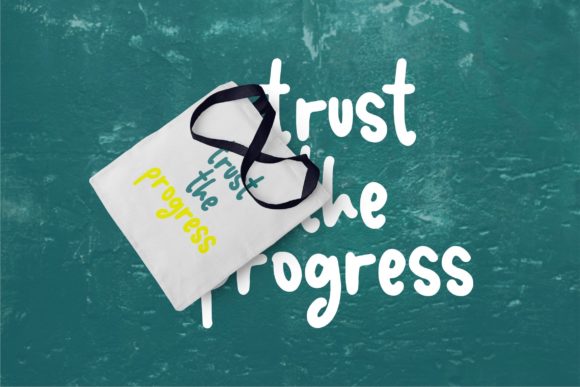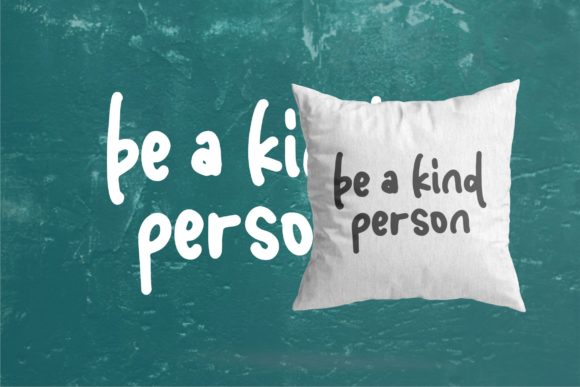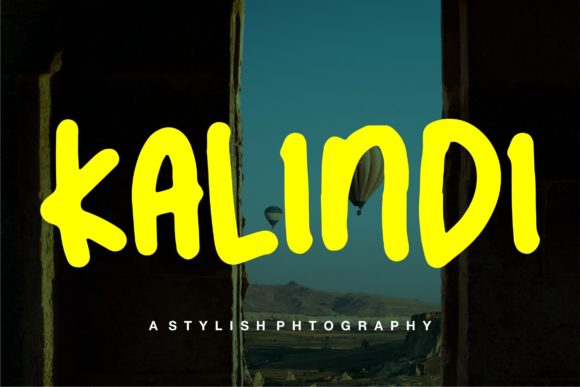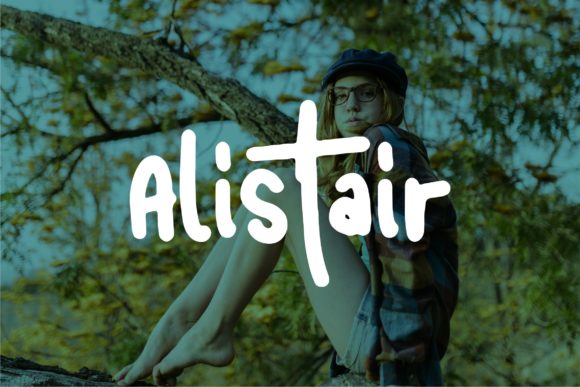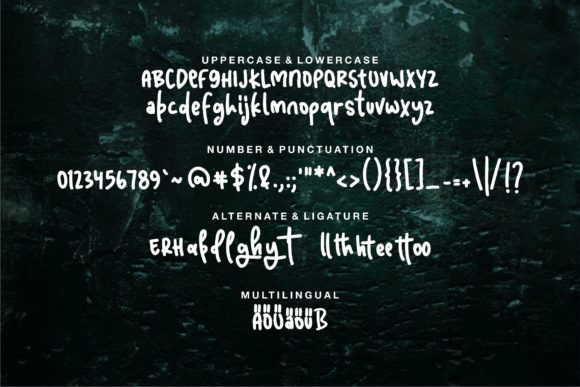
Introducing Blaira Font: The Cute and Natural Handwritten Font for Your Creative Projects
Are you a designer or crafter looking for a font that adds a touch of warmth and personality to your creations? Look no further than Blaira Font, a beautiful and natural handwritten font that’s perfect for a variety of projects. In this article, we’ll take a closer look at Blaira Font, its features, and how you can use it to elevate your designs.
What is Blaira Font?
Blaira Font is a delightful, handwritten font that’s designed to bring a sense of innocence and playfulness to your designs. With its cute and natural appearance, Blaira Font is ideal for projects that require a personal touch, such as cartoon-related designs, children’s games, and other creations that need a lovely and approachable feel.
Key Features of Blaira Font
So, what makes Blaira Font so special? Here are some of its key features:
- Cute and Natural Appearance: Blaira Font has a charming, handwritten look that’s perfect for designs that require a personal touch.
- Handwritten Style: The font features a natural, handwritten style that’s reminiscent of children’s drawings.
- Playful and Whimsical: Blaira Font has a playful and whimsical feel that’s perfect for designs that need to appeal to a younger audience.
- Easy to Read: Despite its playful appearance, Blaira Font is easy to read, making it perfect for body text and headlines.
Use Cases for Blaira Font
Blaira Font is a versatile font that can be used in a variety of projects, including:
- Cartoon-Related Designs: Blaira Font is perfect for cartoon-related designs, such as character designs, comics, and animated videos.
- Children’s Games: The font’s playful and whimsical feel makes it ideal for children’s games, puzzles, and educational materials.
- Branding and Packaging: Blaira Font can be used in branding and packaging designs that require a personal touch, such as food labels, product packaging, and business cards.
- Digital and Print Media: The font can be used in digital and print media, including social media graphics, flyers, brochures, and posters.
Why Choose Blaira Font?
So, why should you choose Blaira Font for your next project? Here are some reasons:
- Unique and Eye-Catching: Blaira Font has a unique and eye-catching appearance that sets it apart from other fonts.
- High-Quality: Blaira Font is a high-quality font that’s designed to produce crisp and clear results.
Tips for Using Blaira Font
Here are some tips for using Blaira Font effectively:
- Use it for Headlines and Body Text: Blaira Font is suitable for both headlines and body text, making it a versatile font for a variety of projects.
- Experiment with Colors and Textures: The font’s playful appearance lends itself well to experimentation with colors and textures.
- Pair it with Other Fonts: Blaira Font can be paired with other fonts to create a unique and interesting contrast.
In conclusion, Blaira Font is a beautiful and natural handwritten font that’s perfect for designers and crafters who need a font that adds a touch of warmth and personality to their creations. With its cute and natural appearance, Blaira Font is ideal for a variety of projects, from cartoon-related designs to children’s games and branding materials. Whether you’re a professional designer or a DIY crafter, Blaira Font is a great choice for your next project.